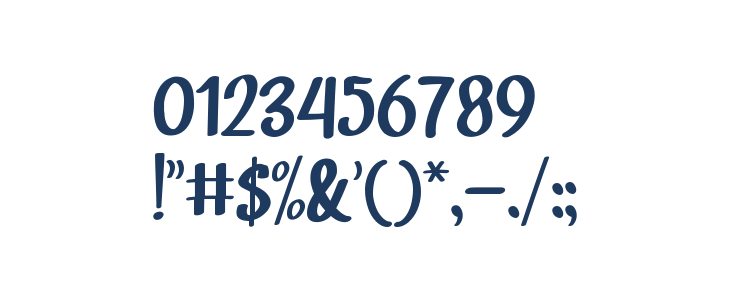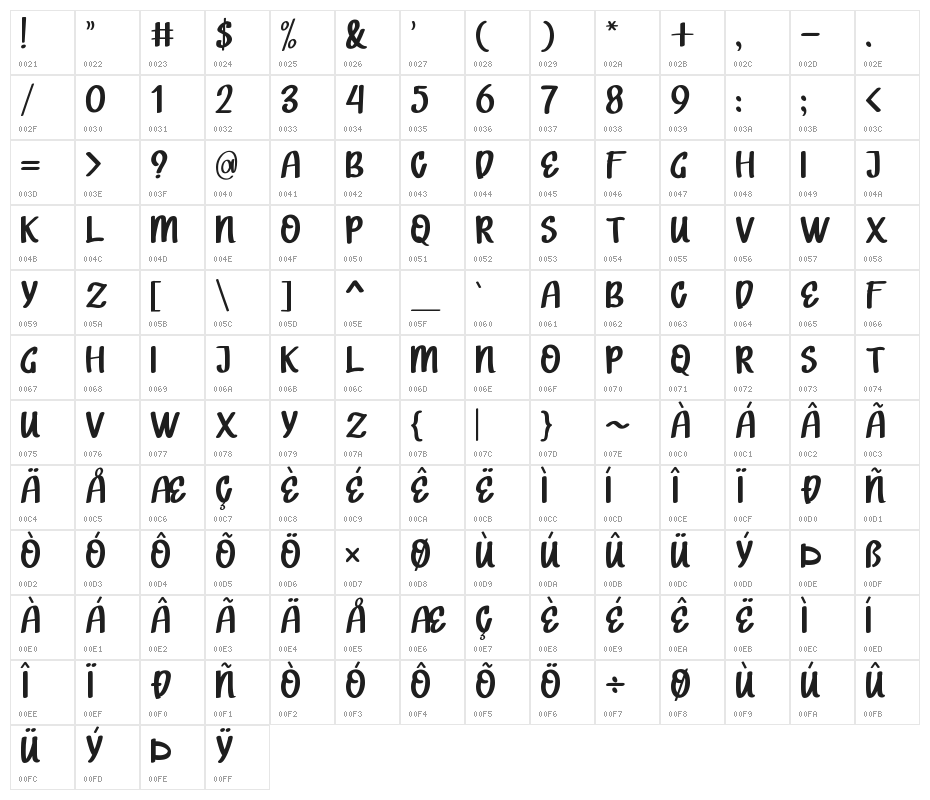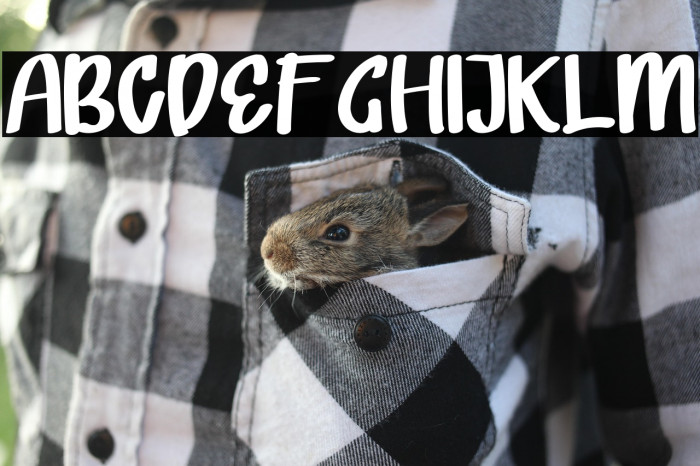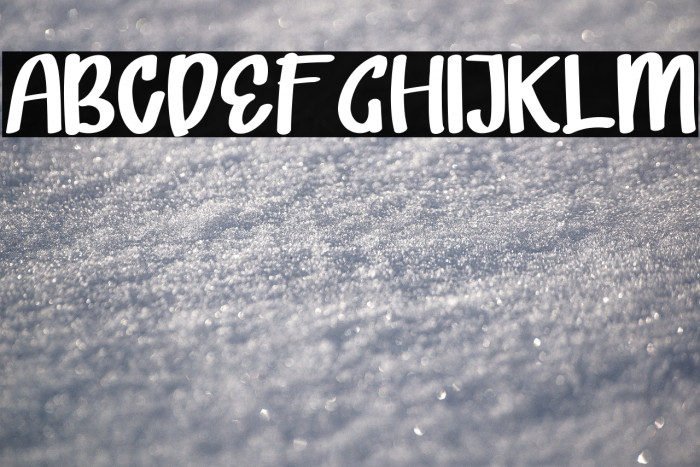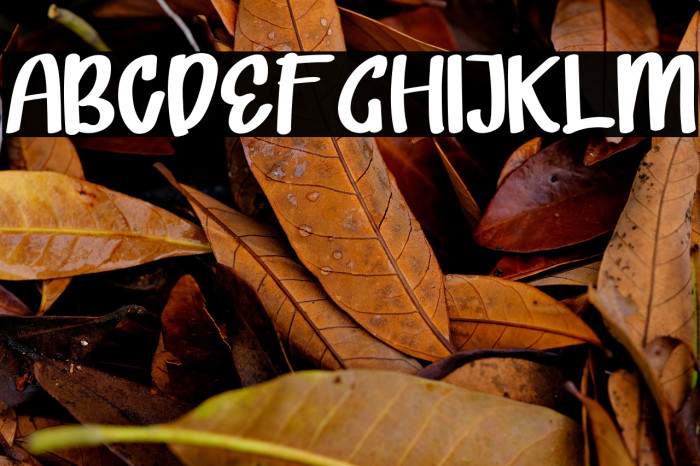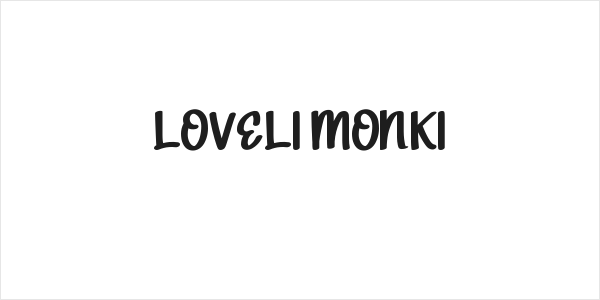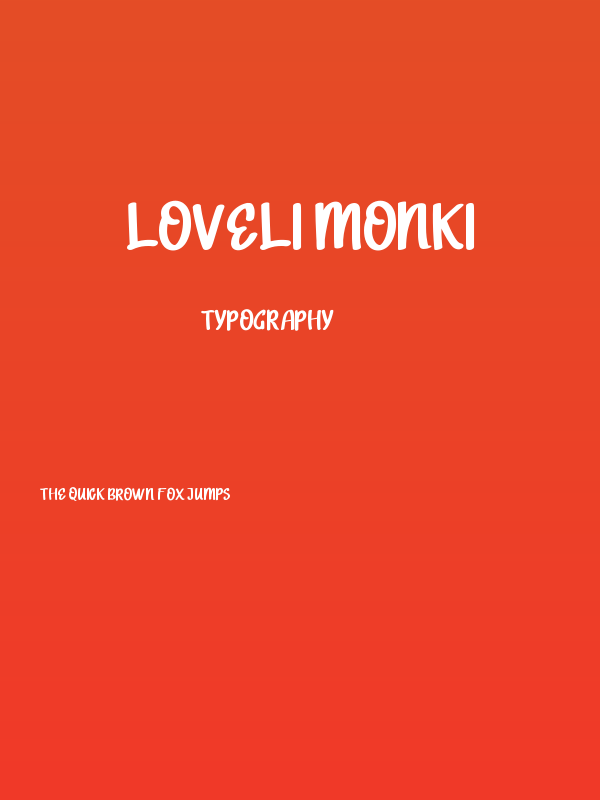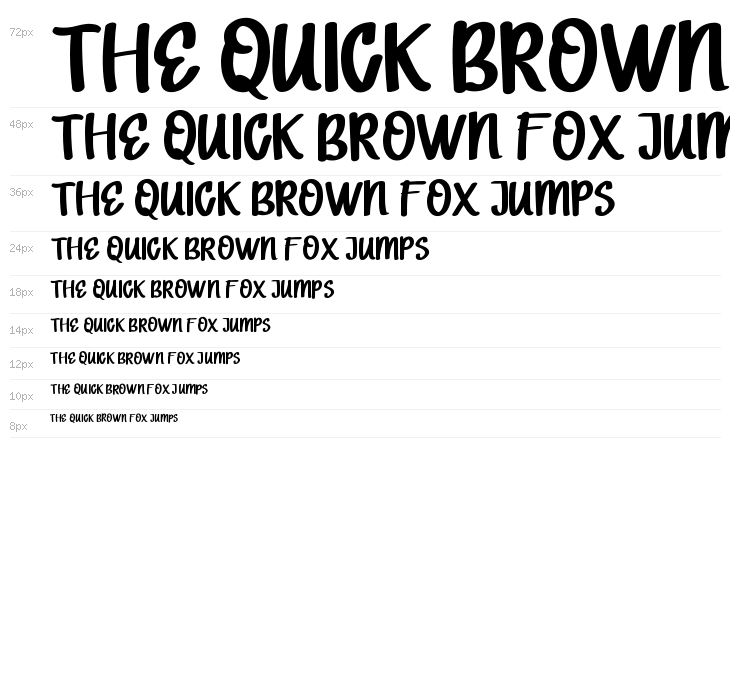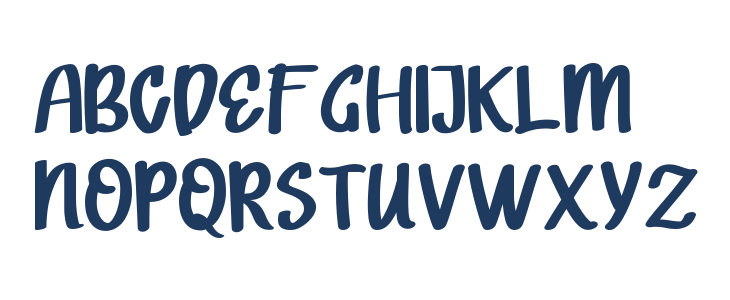
LOVELI MONKI Font
LOVELI MONKI Description
This font features a playful and bold handwritten style, characterized by its thick strokes and slightly irregular shapes, giving it a lively and informal appearance. The uppercase letters are prominent and well-defined, while the lowercase letters maintain a consistent flow, enhancing readability. The numerals are equally bold, ensuring they stand out in any design. Special characters are creatively styled, adding to the font's overall charm. Its unique personality makes it suitable for projects that require a touch of fun and creativity.
| Overall Style | Playful, Informal |
| Proposed Projects | Ideal for children's books, playful branding, greeting cards, and social media graphics. |